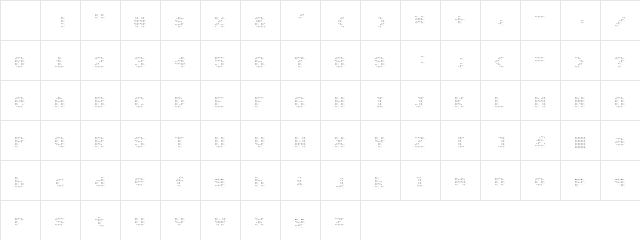
Complete 00ne Neuropearl (for TomoAlien) Regular glyph index. Displaying only characters natively supported by 00ne Neuropearl (for TomoAlien) Regular font.
00ne Neuropearl (for TomoAlien) is a composed and adaptable typeface that performs quietly and consistently across a wide range of design contexts.